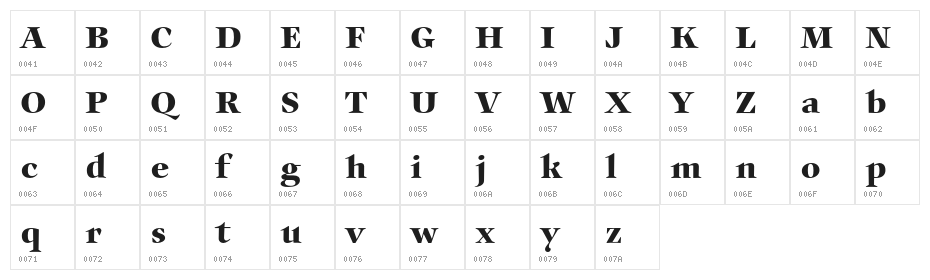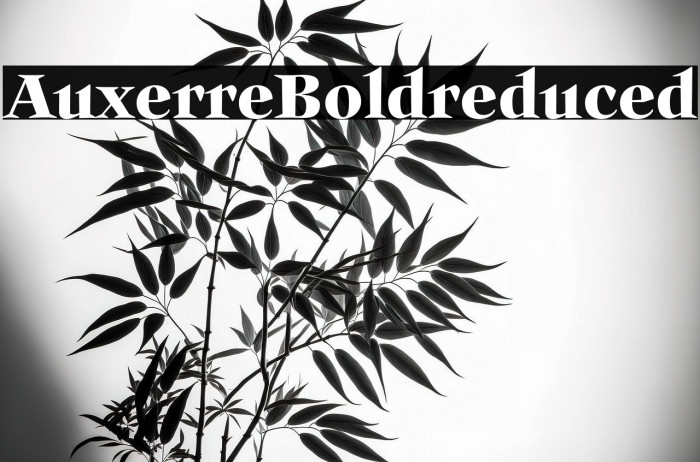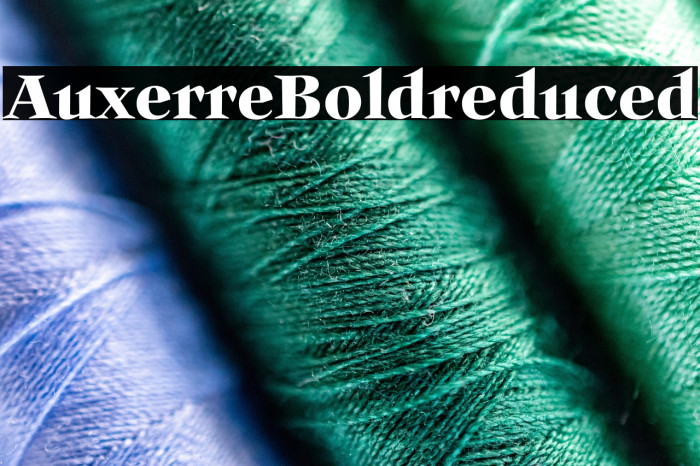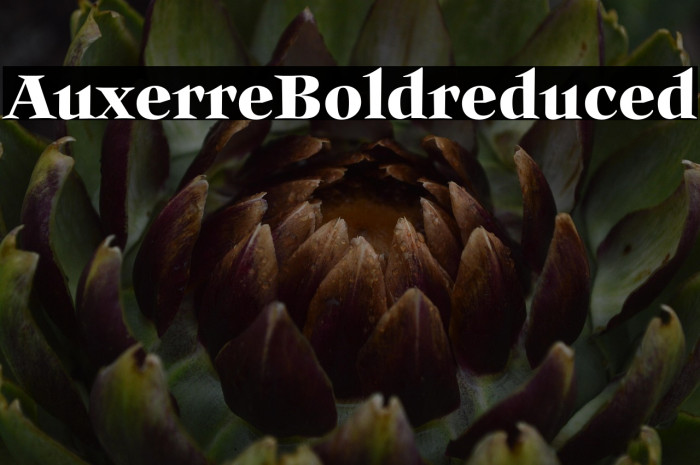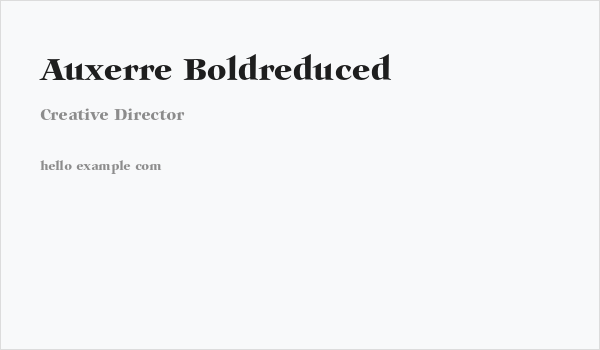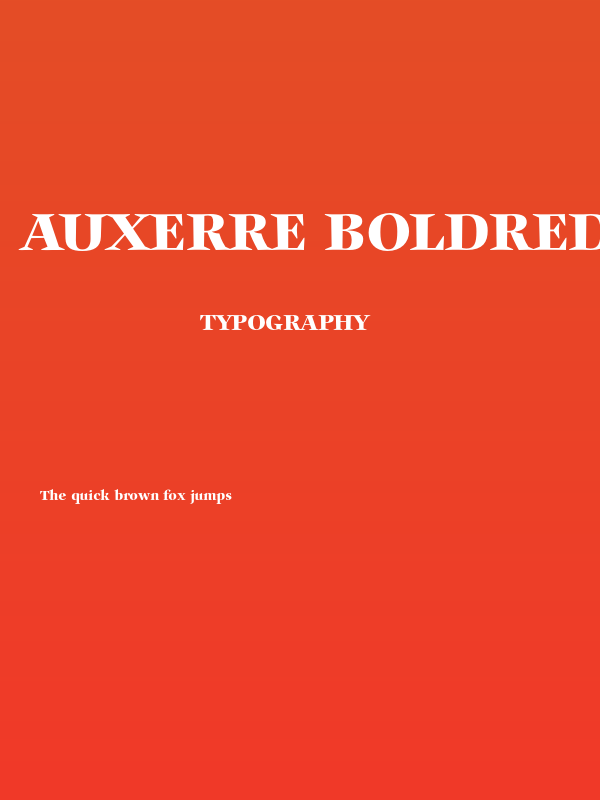
Auxerre-Boldreduced Font
Auxerre-Boldreduced Description
This font features a bold and striking design, characterized by its strong serifs and high contrast between thick and thin strokes. The uppercase letters exhibit a commanding presence with sharp, angular serifs, while the lowercase letters maintain a consistent weight, providing a harmonious balance. The overall style is reminiscent of classic serif fonts, yet it carries a modern twist with its pronounced stroke contrast and clean lines. This font is well-suited for making a bold statement in headlines or titles, where readability and impact are paramount.
| Proposed Projects | This font is perfect for editorial design, book covers, branding projects, and any application where a strong, classic yet modern serif is desired. |